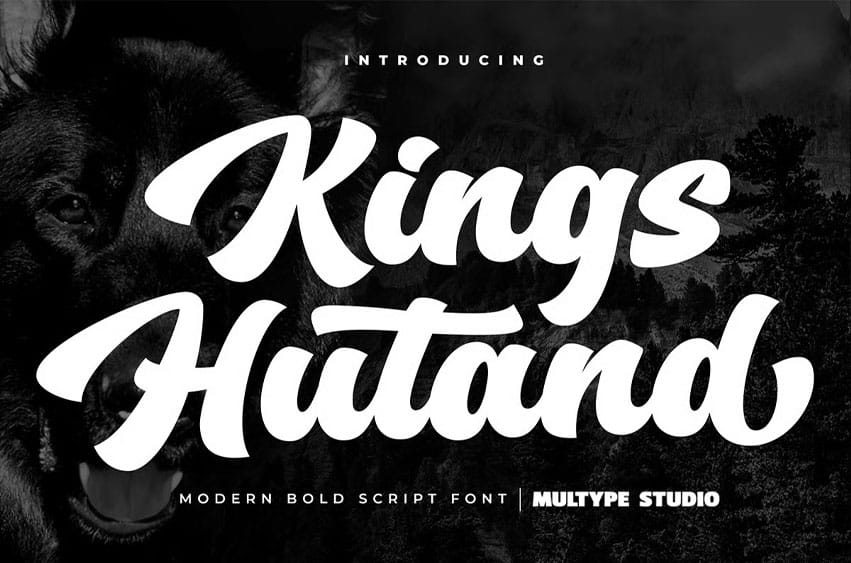
Kings Hutand Font is a script type family of two fonts, a modern script font with bold style and modern looks. Have a unique style that will make your design look iconic. Kings Hutand can be used for logo, branding, packaging and and anything that requires bold script font. This font has of alternative characters, swashes, and ligatures that will make your design unique and beautiful.